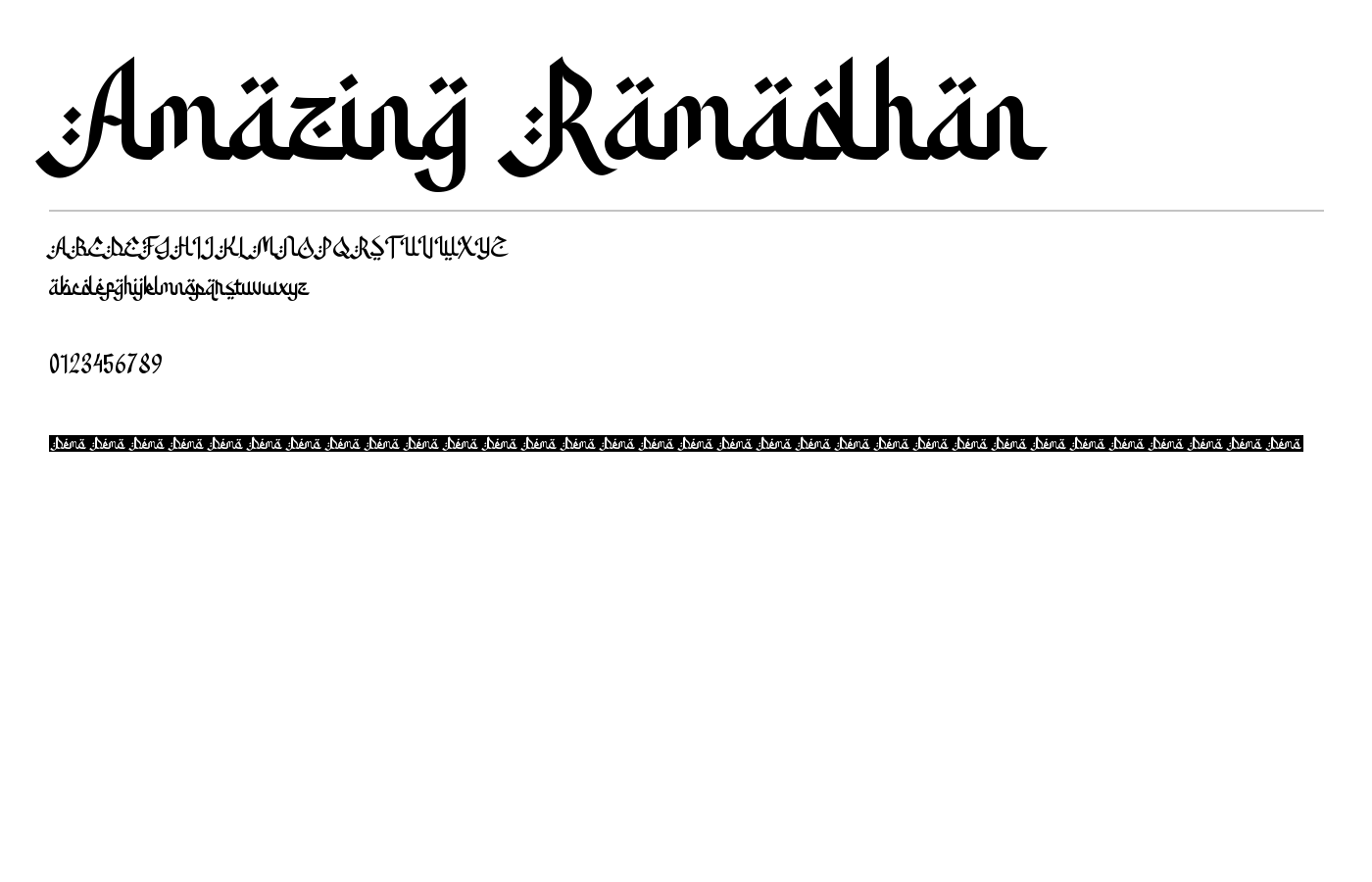
Amazing Ramadhan is a decorative serif font with a distinctive, calligraphic style that combines elegant sharp strokes with playful, rhythmic curves. Its medium contrast and unique letterforms evoke a festive and cultural feel, making it ideal for holiday greetings, event invitations, and branding that seeks a traditional yet artistic touch. This font works beautifully in headlines and logos where a striking, celebratory impression is desired.
Amazing Ramadhan Font